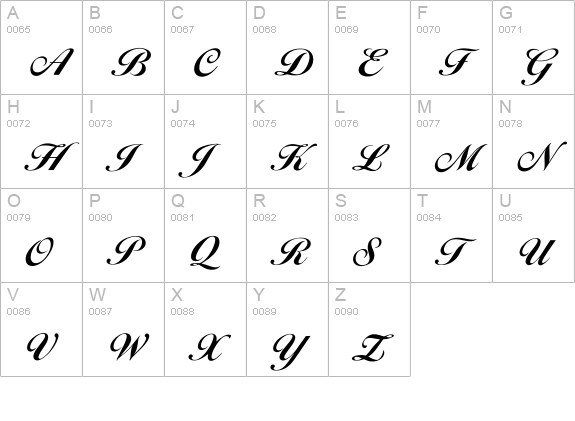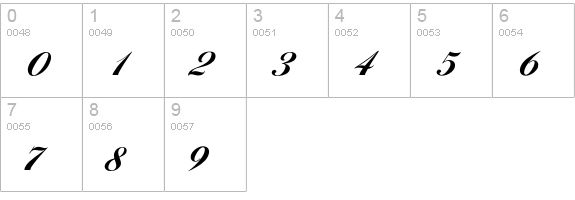
OPTIDiannaScript-BoldAgen Font Details
The OPTIDiannaScript-BoldAgen font is a bold, elegant typeface that exudes sophistication and charm. Its strong, clean lines and graceful curves make it perfect for adding a touch of luxury to any design project. Whether you're creating wedding invitations, branding materials, or elegant packaging, this font will make your text stand out with its timeless appeal. Best of all, OPTIDiannaScript-BoldAgen is available for free download at FontsMarket.com. This means that you can add this stunning font to your collection without having to break the bank. Don't miss out on the opportunity to elevate your designs with this beautiful and versatile typeface. Download OPTIDiannaScript-BoldAgen today and let your creativity shine!